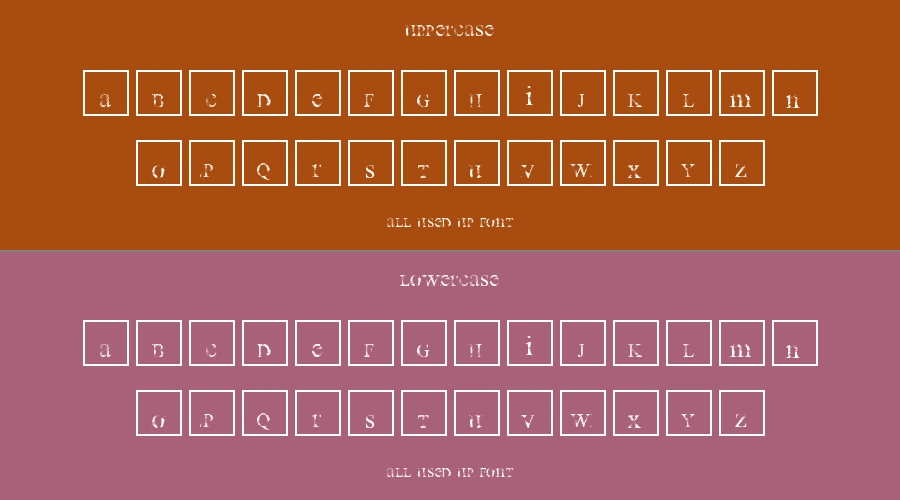
About All Used Up Font
All Used Up Font stands out for its distinctive combination of artistic freedom and textural richness. Ideal for packaging hero, it provides the durability and professional finish that professional projects demand. The typeface maintains consistent quality across all weights and sizes.
Key features include refined consistent strokes and practical proportional figures, enhancing typographic expression. In certification marks applications, All Used Up Font demonstrates exceptional readability. The x-height and cultural references contribute to its distinctive character and professional appeal.